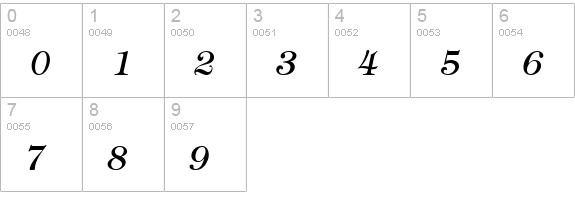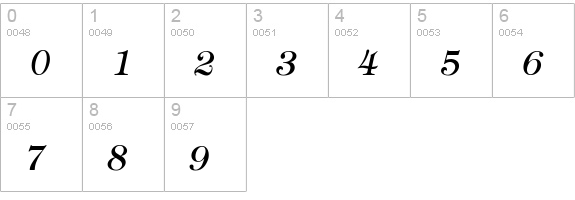
Sophisticate Light SSi Light Italic is a refined, elegant, italic variant in the Sophisticate typeface family \xE2\x80\x94 well suited to elegant body text, refined sub-headings, and luxury branding.
Sophisticate Light SSi Light Italic font is a refined and elegant typeface that exudes sophistication and class. With its delicate curves and slanted italics, this font is perfect for adding a touch of elegance to any design project. The light weight of this font gives it a subtle and airy appearance, making it ideal for projects that require a delicate and refined touch. Whether used in logos, invitations, or headlines, Sophisticate Light SSi Light Italic font adds a touch of sophistication and style. One of the best features of this font is that it is freely available to download. You can easily obtain this font from FontsMarket.com, a trusted source for high-quality fonts. This means that you can use Sophisticate Light SSi Light Italic font in your personal and commercial projects without any restrictions. The versatility of this font allows it to be used in a wide range of design applications. Its clean and legible characters make it suitable for both print and digital projects. Whether you are designing a website, creating a poster, or crafting a brochure, Sophisticate Light SSi Light Italic font will add an extra layer of elegance and professionalism to your work. In addition to its aesthetic appeal, this font is also highly readable, making it easy for readers to engage with your content. Its carefully designed letterforms ensure that each character is distinct and easily recognizable. If you are looking for a font that combines sophistication, elegance, and readability, then Sophisticate Light SSi Light Italic font is the perfect choice. And with its free availability for download at FontsMarket.com, there is no reason not to give this font a try in your next design project.